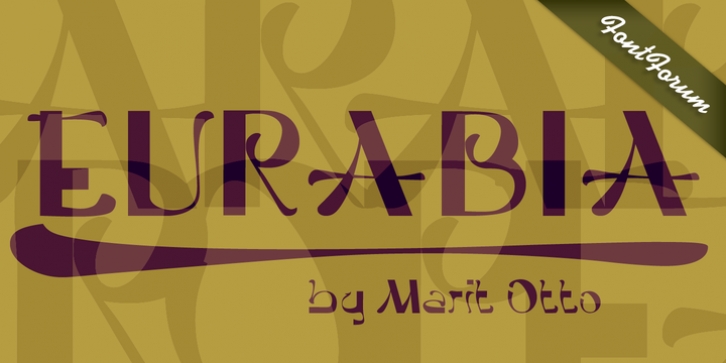
Eurabia - The actual typeface. Eurabia is a mixture of two origins. It proofs not to be an easy fitting between the two cultures. This typeface is ahead of the issues at hand. It shows that although it is causing friction, fears and wrath we shall unite in the end and form new identities. These new identities must be open minded, respectful and tolerant towards indifferences and the values of one and other. This knife only cuts both ways. Eurabia is a positive typeface, which wants to believe, against all odds, that love is more powerful than hate. In Eurabia ancient European and Arabic elements brought together and make a new fresh appearance. It works wonder well, the frolic and graceful curled lines combined with the solid firm lines. Gradual from thick to thin, from square to round. It is all well accepted in this typeface. It is suitable for poster design, adds, graphic purposes and writing.